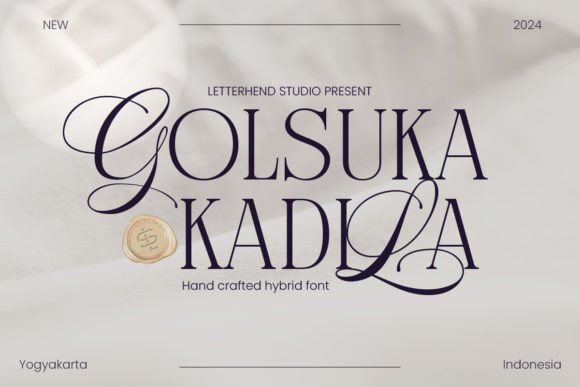
Golsuka Kadila Font: Elevate Your Designs with Classic Elegance and Modern Flair
In the world of typography, a font can make or break a design. It can add a touch of elegance, convey a sense of sophistication, or evoke a feeling of playfulness. For designers, finding the perfect font that combines style, versatility, and uniqueness can be a daunting task. However, if you’re looking for a typeface that seamlessly blends classic elegance with modern flair, look no further than the Golsuka Kadila Font.
What is Golsuka Kadila Font?
Golsuka Kadila is a handcrafted serif-script hybrid typeface that is sure to elevate your designs to new heights. This beautiful font features timeless script uppercase letters and stylish serif lowercase letters, making it perfect for a wide range of design applications. Whether you’re working on invitations, logos, magazines, books, wedding cards, packaging, fashion, or any other project that requires a touch of sophistication, Golsuka Kadila is the perfect choice.
Key Features of Golsuka Kadila Font
So, what sets Golsuka Kadila apart from other fonts? Here are some of its key features:
- Handcrafted serif-script hybrid typeface: Golsuka Kadila is a unique blend of classic script and modern serif elements, making it a standout in any design.
- Timeless script uppercase letters: The uppercase letters are elegant, sophisticated, and perfect for making a statement.
- Stylish serif lowercase letters: The lowercase letters are clean, crisp, and add a touch of modernity to your designs.
- Versatile: This font is perfect for a wide range of design applications, from invitations and logos to magazines, books, and more.
Why Choose Golsuka Kadila Font?
With so many fonts available, why should you choose Golsuka Kadila? Here are just a few reasons:
- Unique and distinctive: Golsuka Kadila is a one-of-a-kind font that will set your designs apart from the rest.
- Elegant and sophisticated: This font exudes classic elegance and sophistication, making it perfect for high-end designs.
- Modern and fresh: The stylish serif lowercase letters add a touch of modernity to your designs, keeping them fresh and up-to-date.
What Can You Use Golsuka Kadila Font For?
Golsuka Kadila is a versatile font that can be used for a wide range of design applications, including:
- Invitations: Whether it’s a wedding invitation, birthday party invitation, or any other special occasion, Golsuka Kadila is the perfect choice.
- Logos: This font is perfect for creating unique and memorable logos that will set your brand apart.
- Magazines and books: Golsuka Kadila is a great choice for publications that require a touch of elegance and sophistication.
- Wedding cards: This font is perfect for creating beautiful and romantic wedding cards.
- Packaging: Golsuka Kadila can add a touch of luxury and sophistication to your packaging designs.
- Fashion: This font is perfect for fashion brands that want to convey a sense of style and elegance.
- Experiment with different sizes and styles: Golsuka Kadila looks great in a variety of sizes and styles, so don’t be afraid to experiment.
- Pair it with other fonts: This font pairs well with other serif and script fonts, so try pairing it with different fonts to create a unique look.
- Use it for headlines and body text: Golsuka Kadila is perfect for both headlines and body text, making it a great choice for publications.
In conclusion, Golsuka Kadila Font is a unique and versatile typeface that is perfect for designers who want to add a touch of classic elegance and modern flair to their designs. With its timeless script uppercase letters and stylish serif lowercase letters, this font is sure to elevate your designs to new heights. Whether you’re working on invitations, logos, magazines, books, or any other project, Golsuka Kadila is the perfect choice.